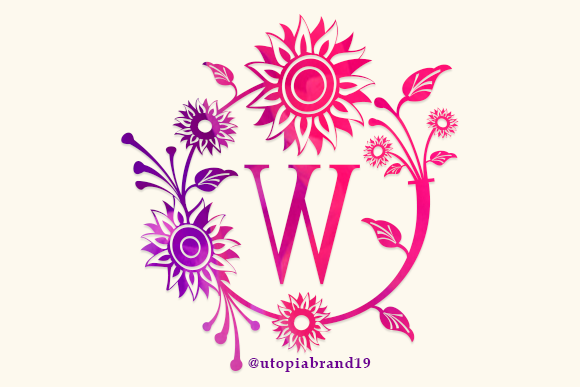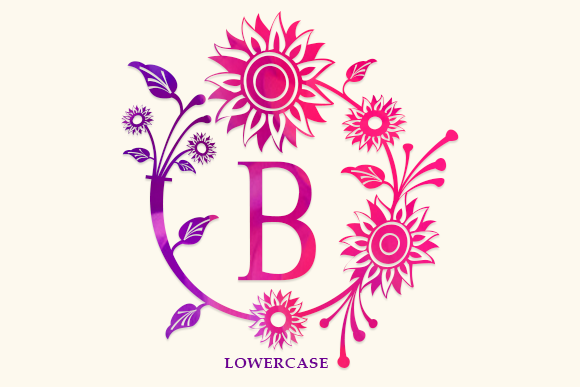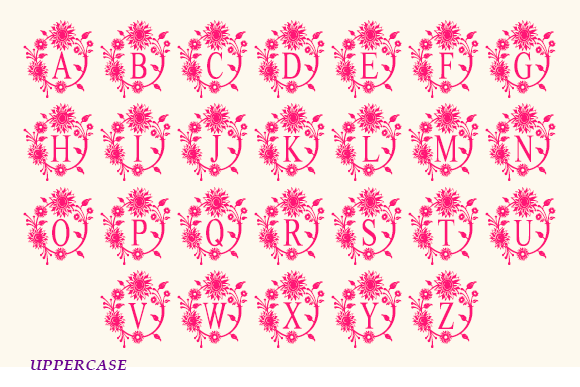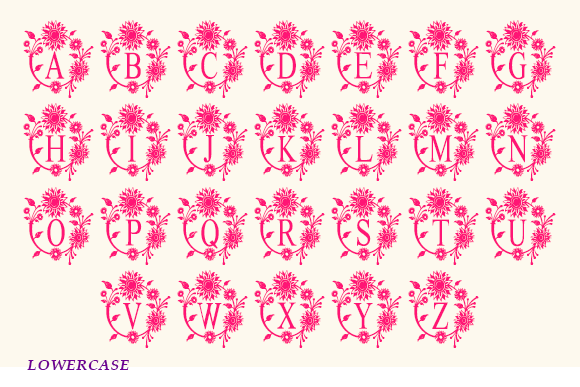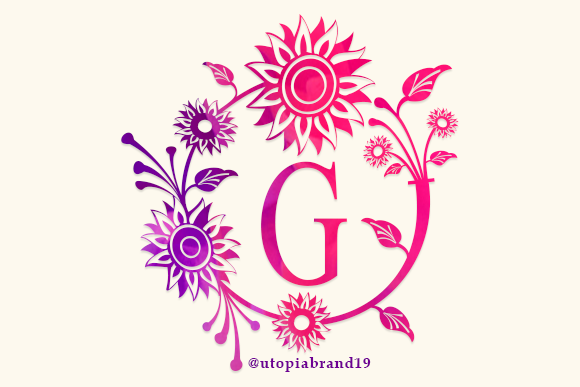
Introduction to Morina Monogram Font
Have you ever been browsing through design inspiration boards, and suddenly, a font catches your eye, transporting you to a world of elegance and charm? That’s exactly what happened when we stumbled upon the beautiful Morina Monogram Font. Its authentic feel and delicate design make it a perfect fit for any creative project, from wedding invitations to social media posts.
As designers, we’re always on the lookout for high-quality design resources that can elevate our work and make it stand out. The Morina Monogram Font is one such treasure, offering a transparent background that makes it easy to customize and pair with other design elements. With its free download available, designers can now access this beautiful font and incorporate it into their next project.
Whether you’re working on a personal or commercial project, the Morina Monogram Font is sure to add a touch of sophistication and whimsy to your design. Its versatility and charm make it a valuable addition to any designer’s toolkit, and we can’t wait to see how you use it to create something truly special.
Key Features of Morina Monogram Font
- Unique monogram design with intricate details and ornate elements
- Transparent background option for versatility in design applications
- Perfect for personalizing gifts, invitations, and other custom items
Honest Review: Morina Monogram Font
As a designer, I’m always on the lookout for high-quality design resources that can elevate my creative projects. The Morina Monogram Font is one such resource that caught my attention. I decided to give it a try and share my honest review with you.
- ✨ High-quality design: The font is well-crafted and visually appealing, making it perfect for any creative project.
- ✨ Transparent background: The font has a transparent background, making it easy to use in designs with complex backgrounds.
- ⚠️ Limited customization options: While the font looks great, I wish there were more customization options available to make it truly unique.
- ⚠️ Not ideal for small text: The font is best used for larger text, as it can become difficult to read in smaller sizes.
Overall, I’m impressed with the Morina Monogram Font. It’s a great addition to any designer’s toolkit, and its free download makes it an excellent choice for creative projects. While it may have a few limitations, it’s a high-quality font that’s definitely worth considering.
The Morina Monogram Font is ideal for creating custom designs for special occasions such as weddings, birthdays, and anniversaries. It can also be used for branding and marketing materials, such as business cards and brochures. Additionally, the font can be used to add a touch of elegance to invitations and other event materials.